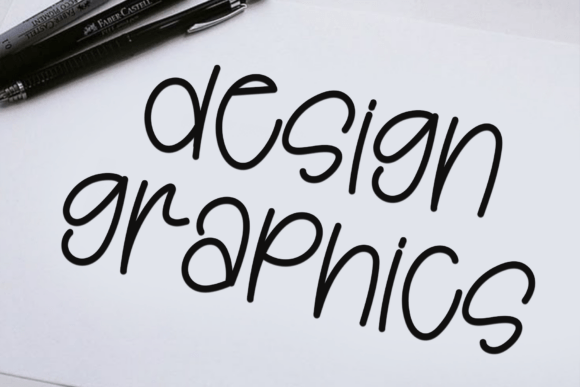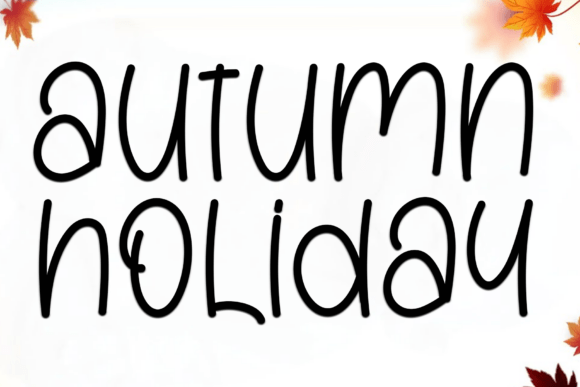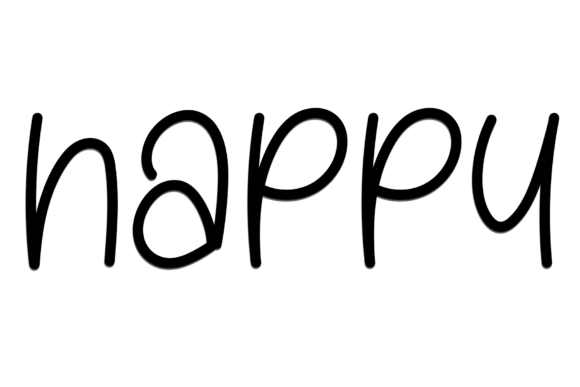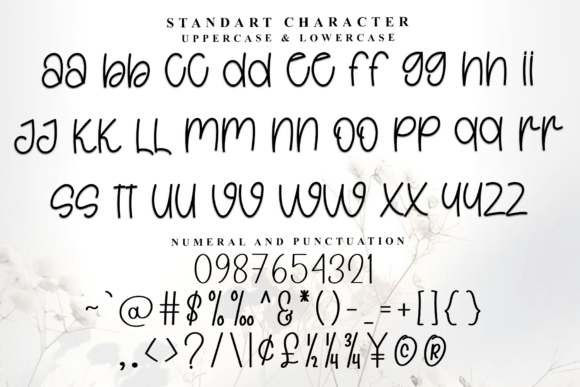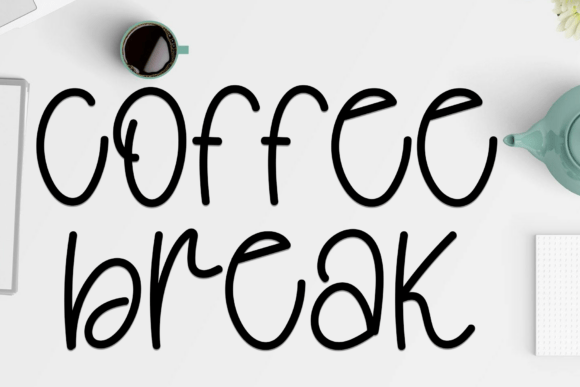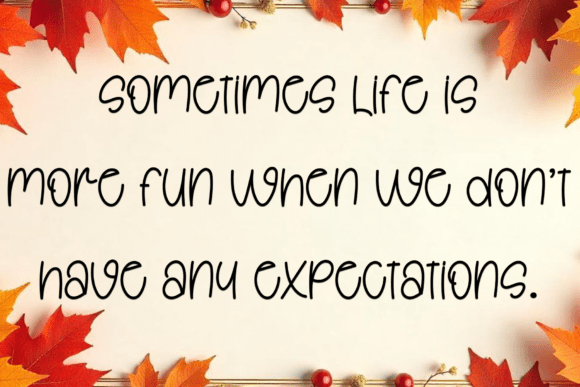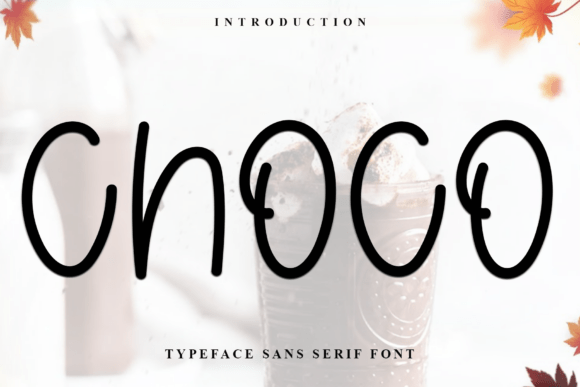
Introducing Choco Font: The Perfect Blend of Beauty and Versatility
In the world of typography, fonts play a crucial role in making designs stand out. Among the numerous fonts available, Choco Font has gained significant attention for its unique and soft touch. This beautiful font is designed to add a special character to your designs, making it an excellent choice for various creative projects.
The Distinctive Features of Choco Font
Choco Font boasts distinctive strokes that set it apart from other fonts. Its special character makes it meaningful and versatile, allowing designers to use it in a wide range of applications. Whether you’re working on a design project, craft, or other creative work, Choco Font is perfect for adding a touch of elegance and sophistication.
A Wide Range of Characters at Your Disposal
One of the standout features of Choco Font is its extensive character set. With a variety of characters to choose from, designers can experiment with different styles and combinations to create unique and captivating designs. This font is ideal for designers who want to add a personal touch to their work and make it more engaging for their audience.
Choco Font is specifically designed for creative projects, making it an excellent choice for designers, crafters, and artists. Its soft and unique touch adds a touch of warmth and personality to any design, making it perfect for:
- Design projects: From brochures to posters, Choco Font is ideal for adding a touch of elegance and sophistication to your designs.
- Crafts: Whether you’re working on a handmade card or a DIY project, Choco Font is perfect for adding a personal touch.
- Artistic and creative works: Choco Font is versatile enough to be used in various artistic and creative fields, including graphic design, illustration, and more.
Enhance Your Designs with Choco Font
With Choco Font, you can take your designs to the next level. Its unique and soft touch adds an extra layer of appeal, making your designs more engaging and captivating for your audience. Whether you’re a designer, crafter, or artist, Choco Font is an excellent addition to your toolkit.
Why Choose Choco Font?
So, why choose Choco Font over other fonts? Here are just a few reasons:
- Unique and soft touch: Choco Font’s distinctive strokes give it a special character that sets it apart from other fonts.
- Versatility: Choco Font is perfect for various design projects, crafts, and artistic and creative works.
- Extensive character set: With a wide range of characters to choose from, designers can experiment with different styles and combinations.
In conclusion, Choco Font is a beautiful and eye-catching font that is perfect for designers, crafters, and artists. Its unique and soft touch, extensive character set, and compatibility with various applications make it an excellent choice for a wide range of creative projects. Whether you’re looking to add a touch of elegance and sophistication to your designs or want to create something truly unique, Choco Font is an excellent addition to your toolkit.